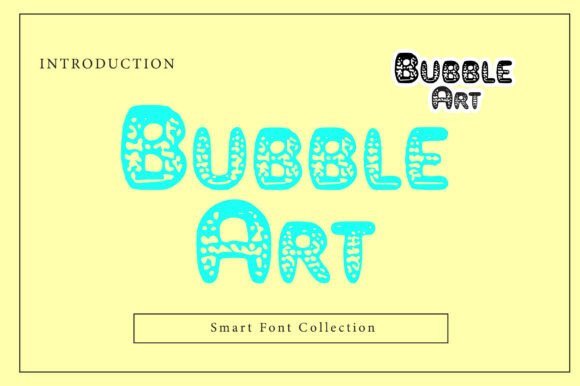
Where Creativity Meets High-Energy Visuals
Have you ever been in the midst of a creative project, and suddenly, an idea strikes – a bold, eye-catching font that perfectly captures the essence of your concept? That’s exactly what happens when you discover the Bubble Art Font. This vibrant display typeface is designed to make a statement, transporting your design from ordinary to extraordinary.
With its bold, rounded forms and intricate textured inner pattern, the Bubble Art Font is perfect for projects that demand high-energy, youth-oriented, and unapologetically creative vibes. Its “Smart Font” construction allows the textured details to shine, even in complex layouts, making it a valuable addition to any designer’s toolkit. Whether you’re working on music festival posters, streetwear branding, or gaming interfaces, the Bubble Art Font is the perfect choice to bring your design to life.
Bubble Art Font Key Features
- Font Family: Bubble Art Font is a unique, hand-drawn font family that includes 6 styles: Regular, Bold, Italic, Bold Italic, Outline, and Shadow.
- Character Set: The font family includes over 200 characters, including uppercase and lowercase letters, numbers, punctuation, and special characters.
- Unique Characteristics: The font’s hand-drawn style and rounded shapes create a playful, whimsical feel that’s perfect for adding a touch of personality to designs.
Bubble Art Font Review
Overall, I think Bubble Art Font is a fun and playful addition to any design project. It’s a great choice when you need to add a whimsical touch to your work. ✨
Here are some things that work well in this font:
- Unique and creative design – Bubble Art Font is one of a kind, and it’s sure to make your designs stand out.
- Good for titles and headings – The font is bold and eye-catching, making it perfect for titles and headings.
- Works well in digital and print formats – Bubble Art Font looks great both on screen and in print.
- Not ideal for body text – The font is a bit too playful and whimsical for body text, and it may be hard to read.
- May not be suitable for formal projects – The font’s playful nature makes it more suitable for creative or casual projects, rather than formal ones.
- Not a great choice for small text sizes – The font’s bold and playful design may become overwhelming when used at small text sizes.
- Use the font to create playful and eye-catching headlines.
- Pair the font with bold and bright colors to add visual interest.
- Social media graphics and posts.
- Children’s book illustrations and designs.
- Party invitations and decorations.